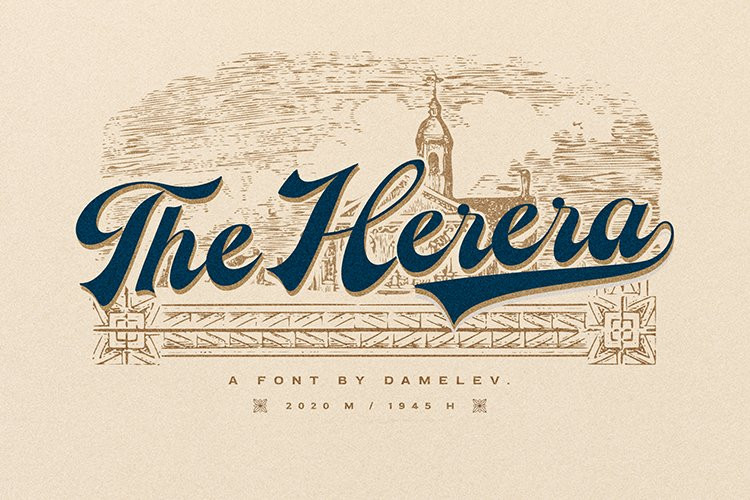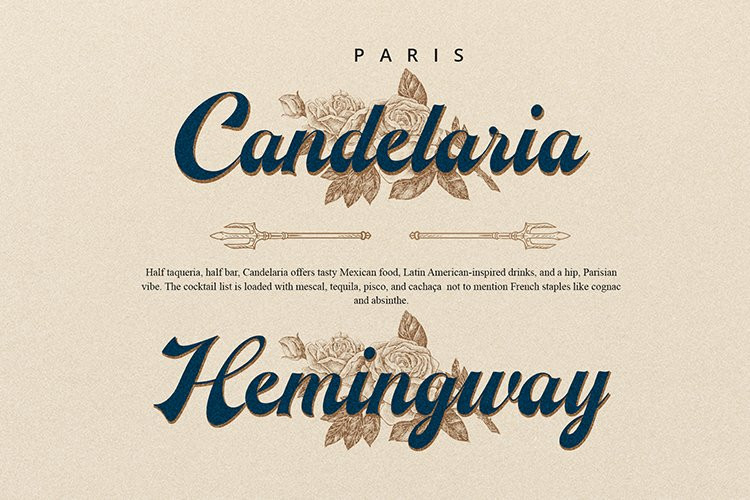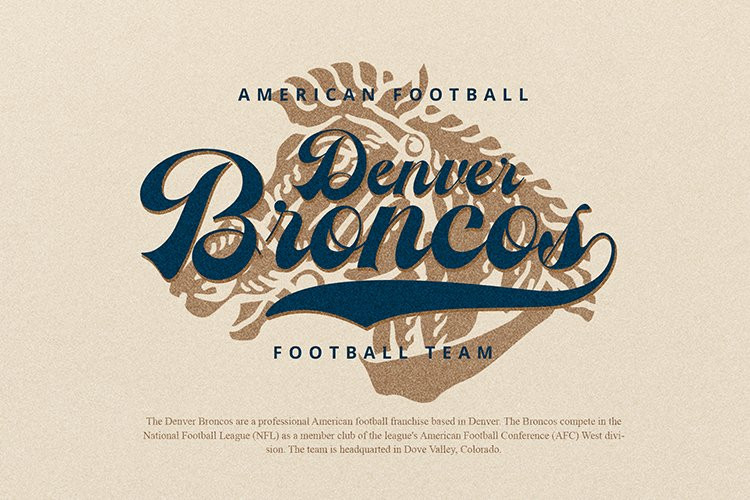
The Herera Font
The Herera FontThe Herera is a vintage font distinctive looking bottom heavy display script inspired by hand lettering, The Herera is designed using elements of typography. The Herera is best used from medium to large sizes.